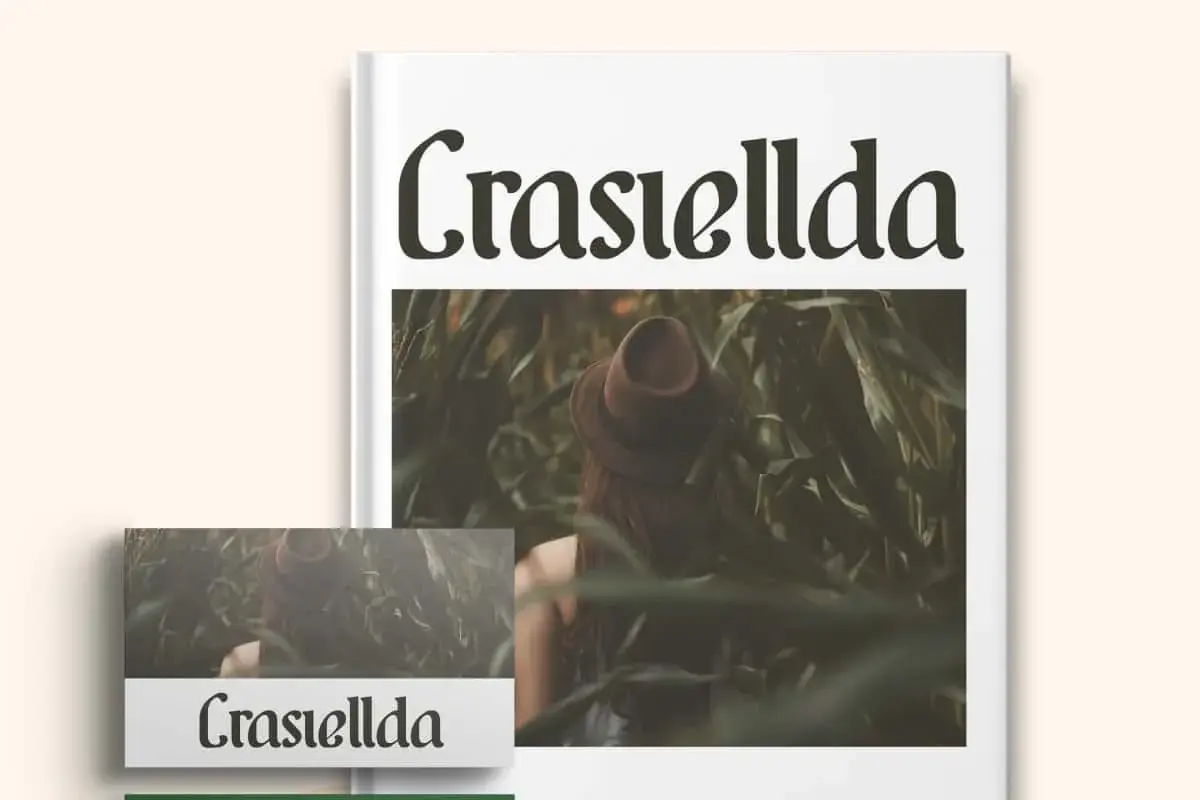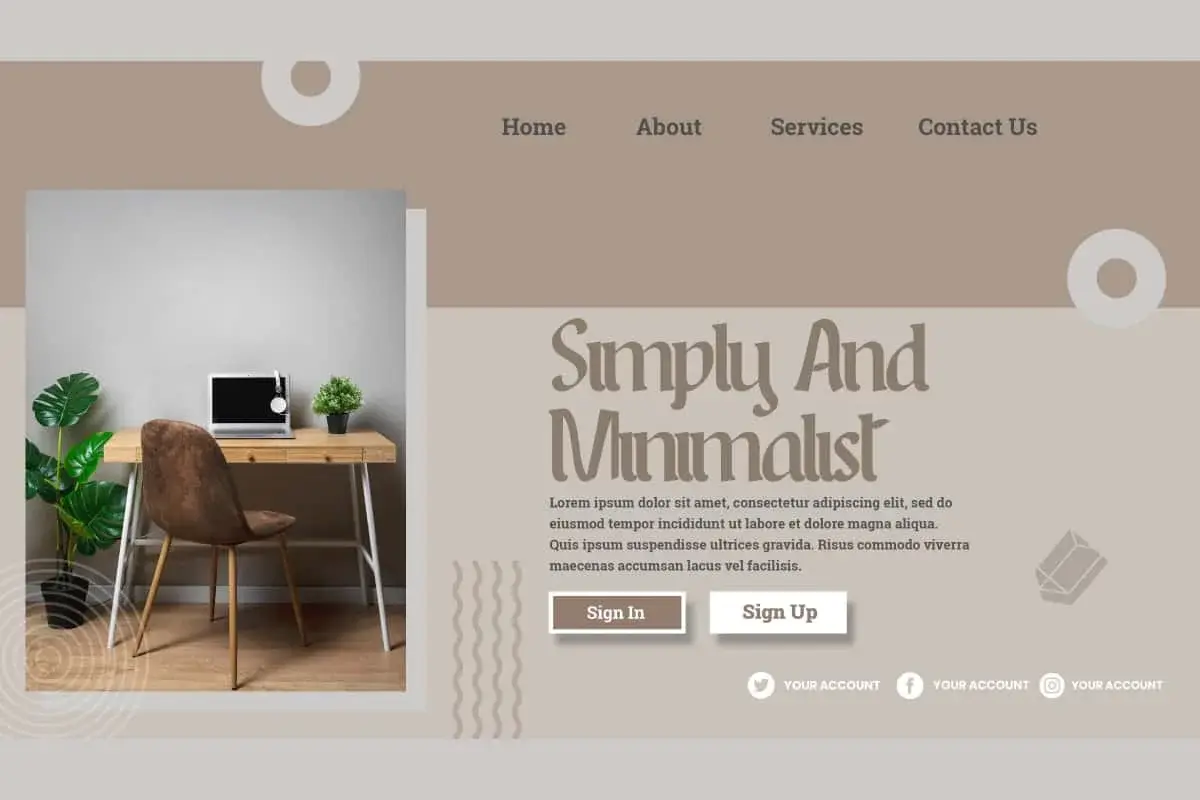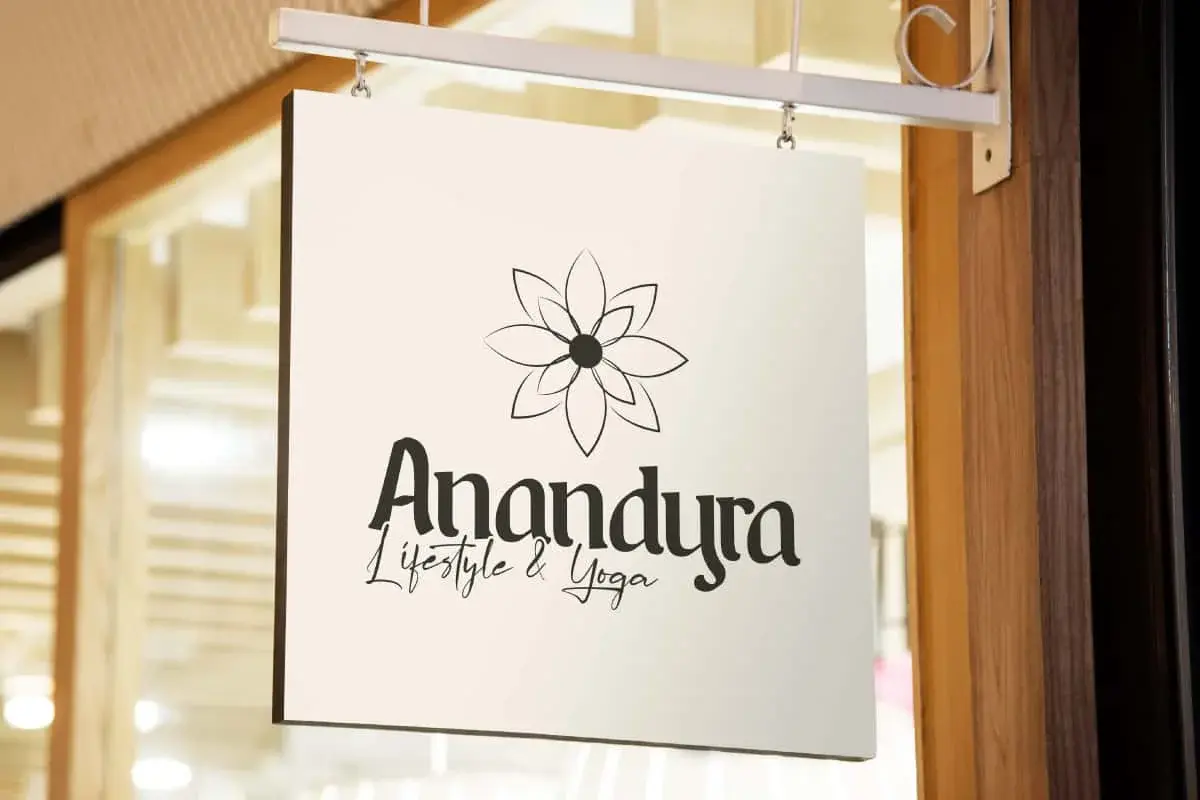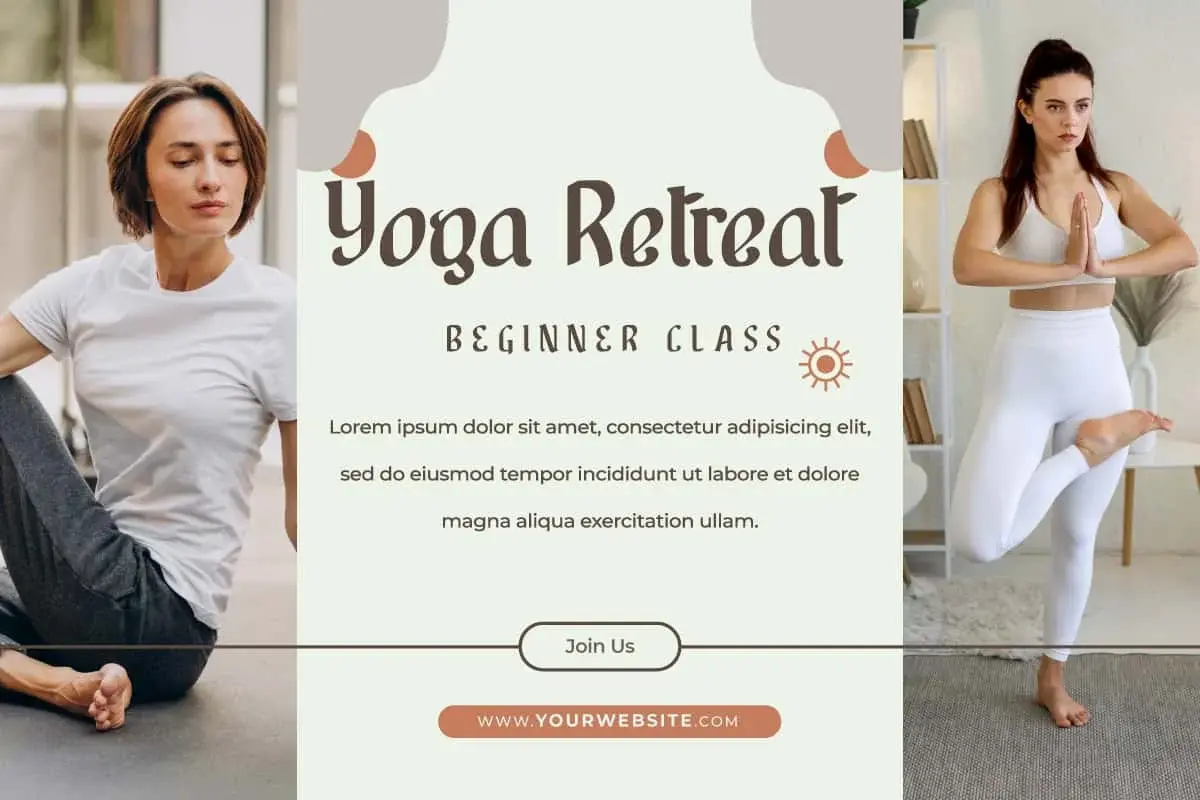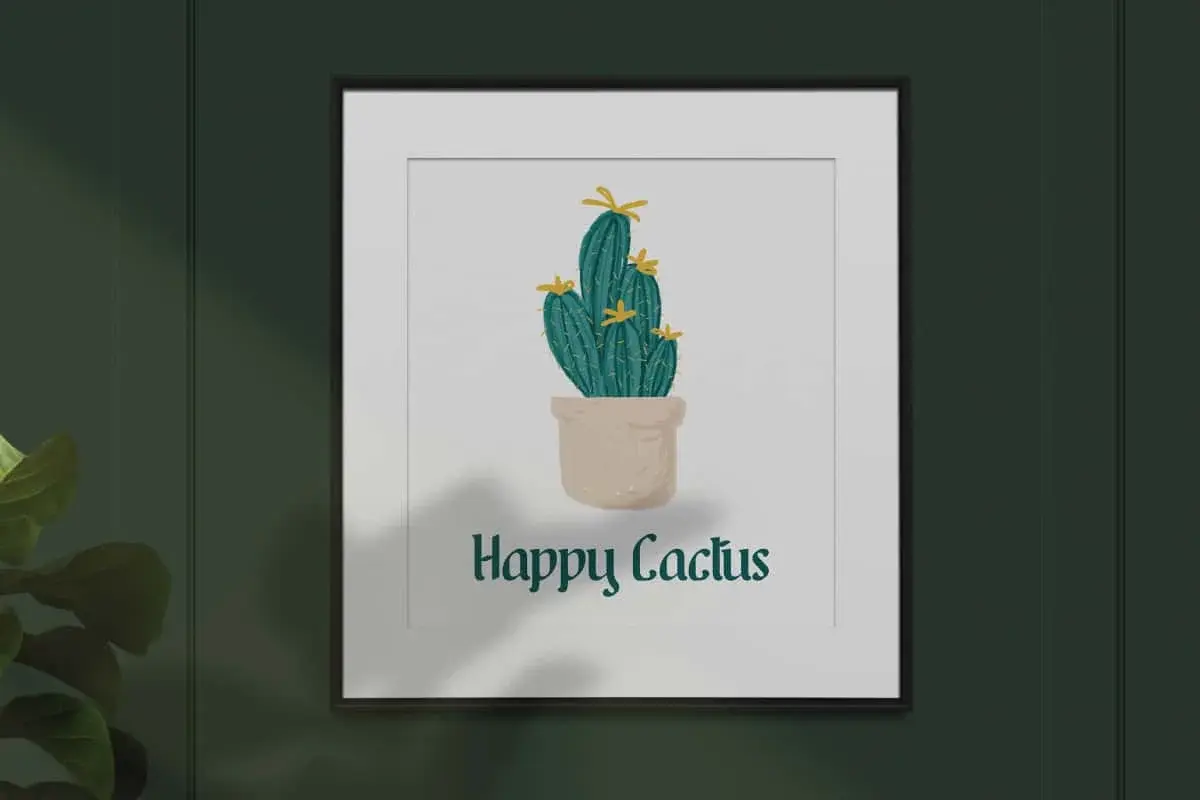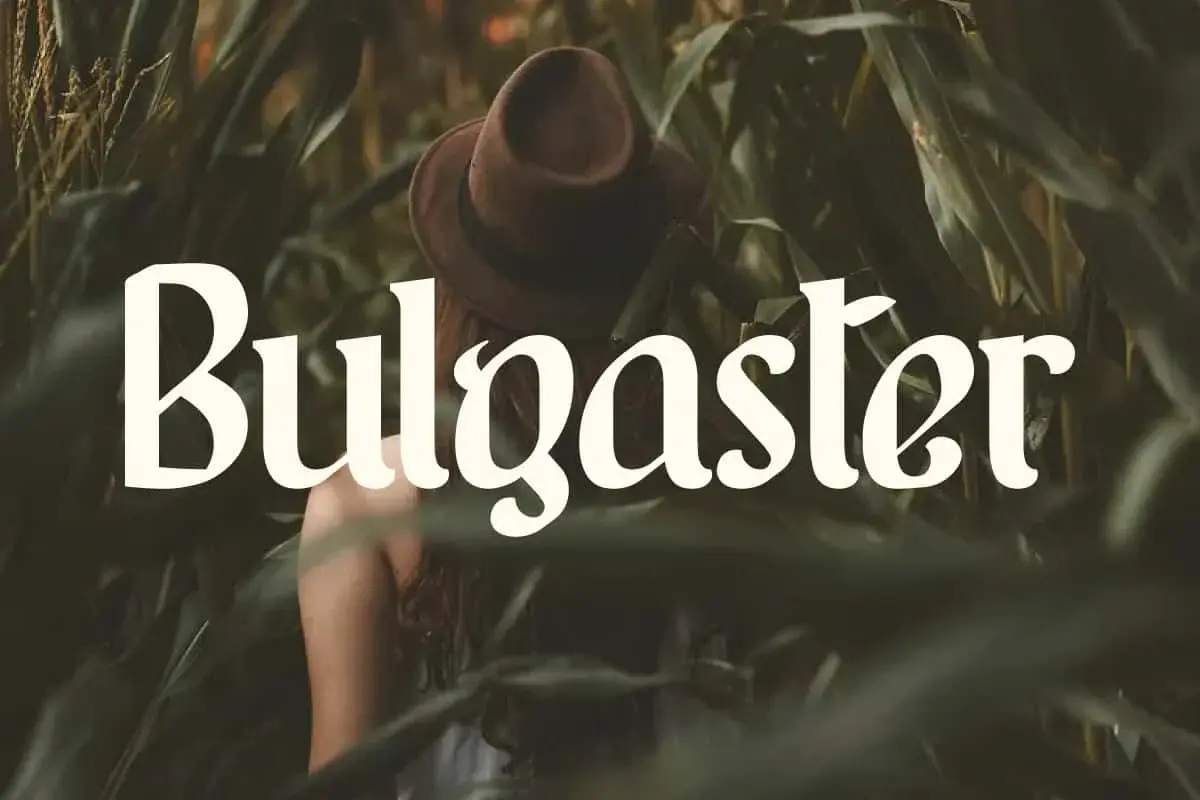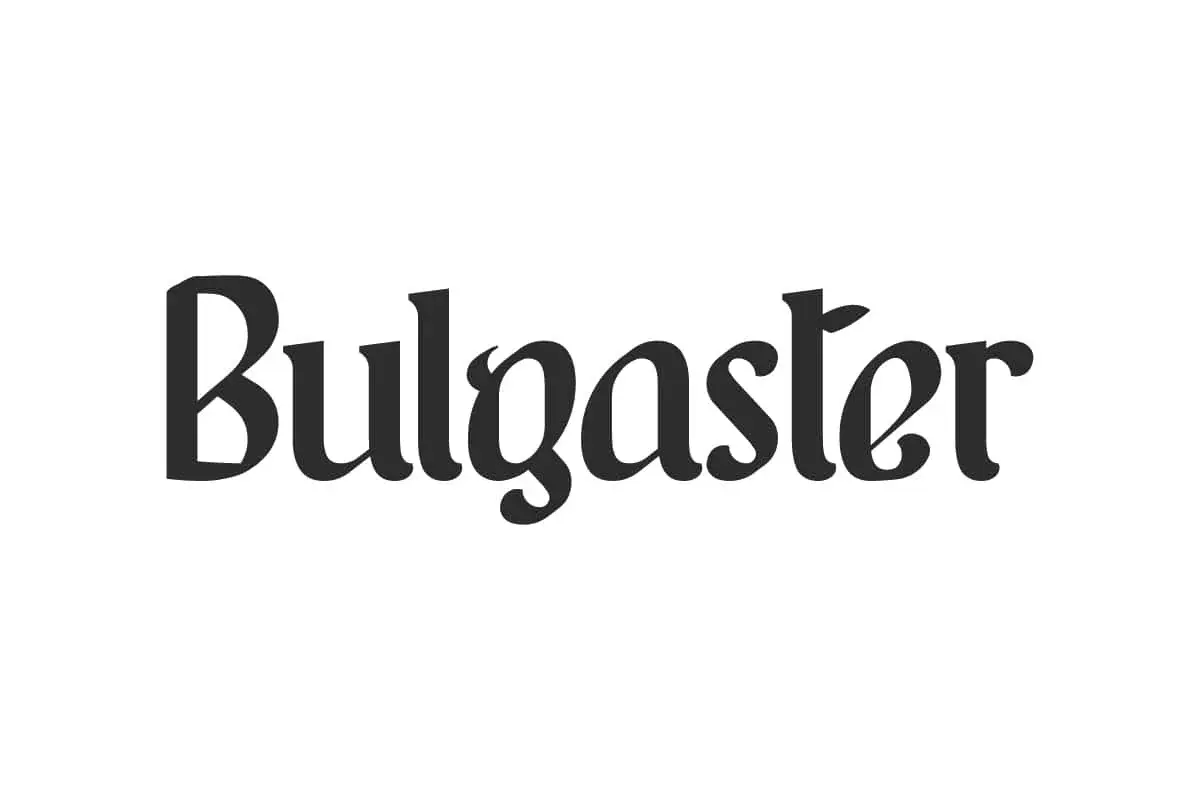
Bulgaster Font is a simplelized gothic display font with classic blackletter style. It is inspired by old gothic legendary look with medieval designs.
Bulgaster Font is a simplelized gothic display font with classic blackletter style. It is inspired by old gothic legendary look with medieval culture which will be useful in any design such as, badges, booklets, branding, cover, flyer, label, logos, packaging design, poster, postcards, quotes, screen printing, signage, stationery, sticker, typographic design, website header, and much more.
Bulgaster Font includes a complete set of Uppercase and Lowercase basic characters, Numbers, Punctuation Marks and Symbols. Classic fonts packaged in a modern and minimalist look that makes it look elegant. It will work well in business industries such as architect, art exhibit, artist, content creator, florist, furniture, graphic design, photography, spa salon, yoga class, and more.